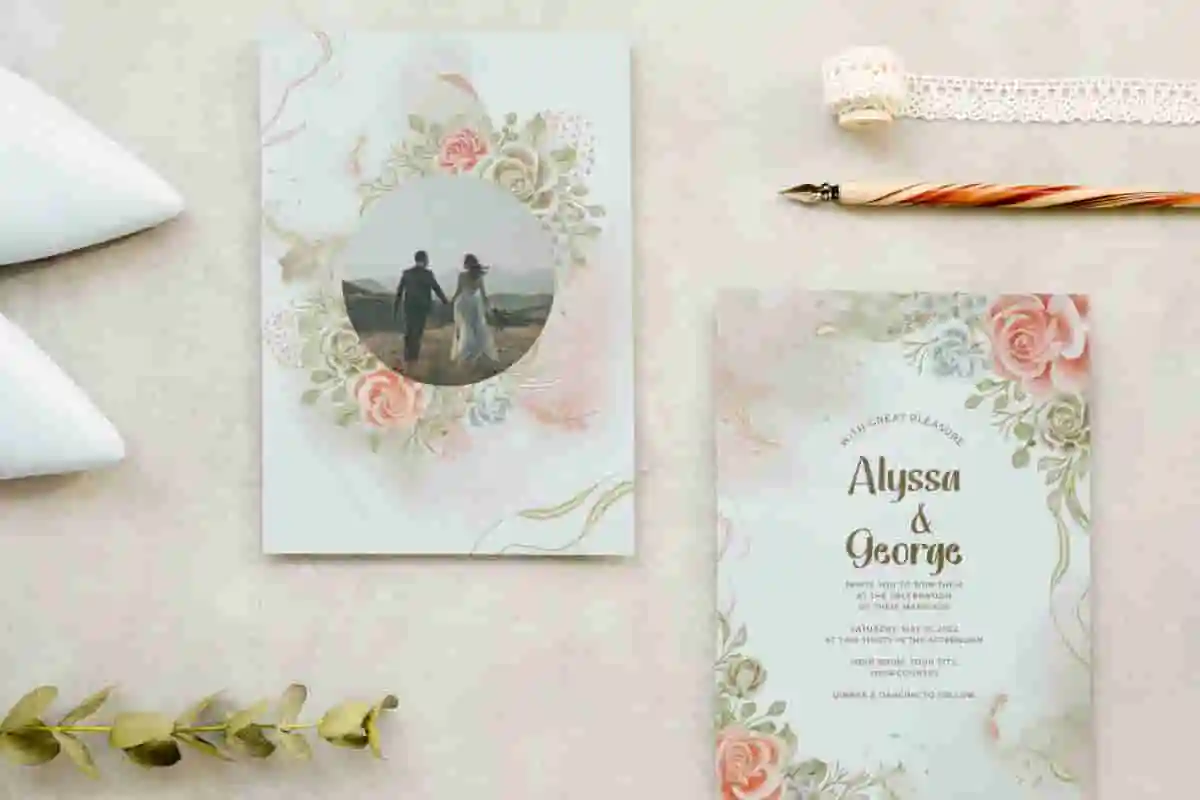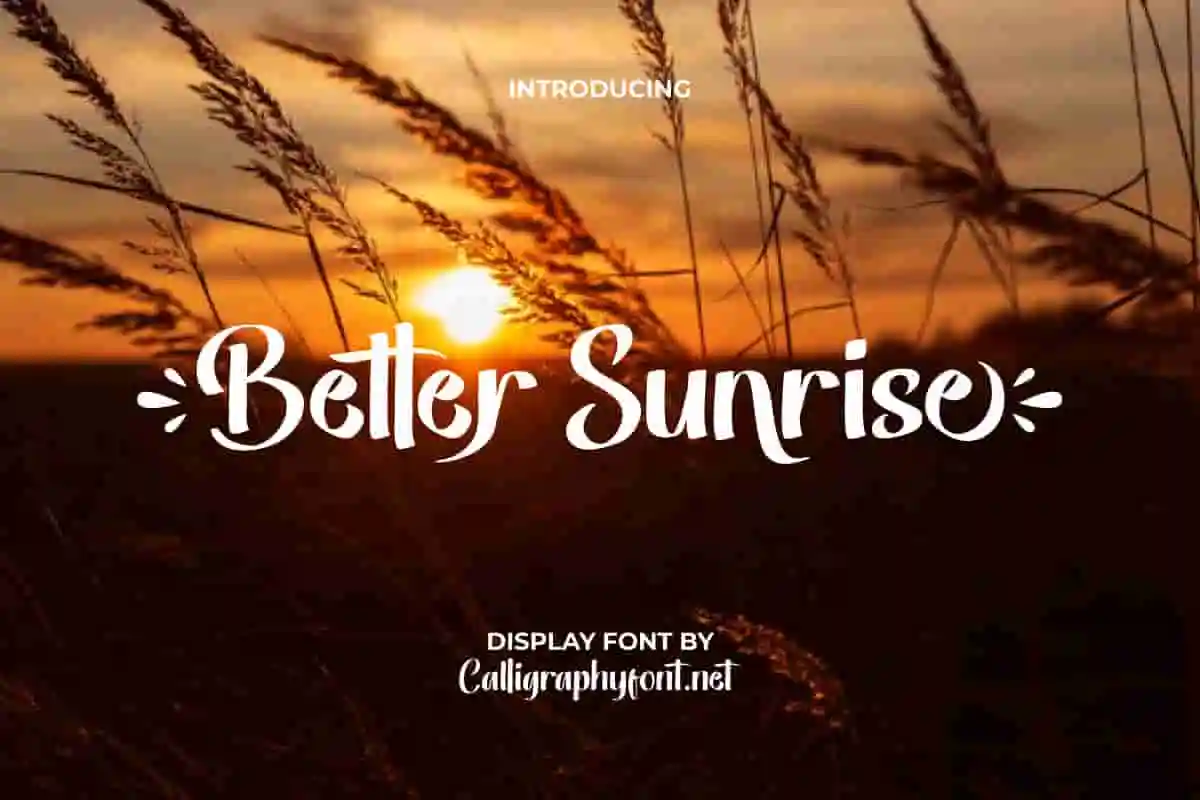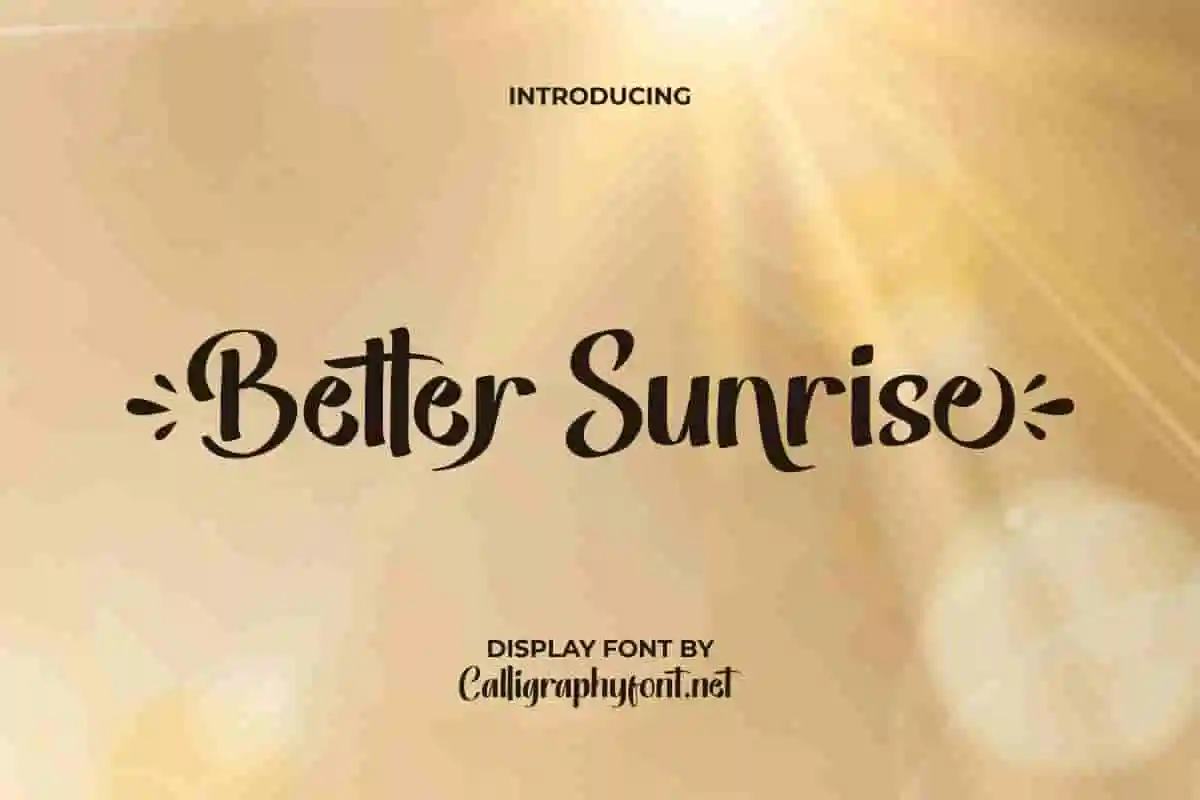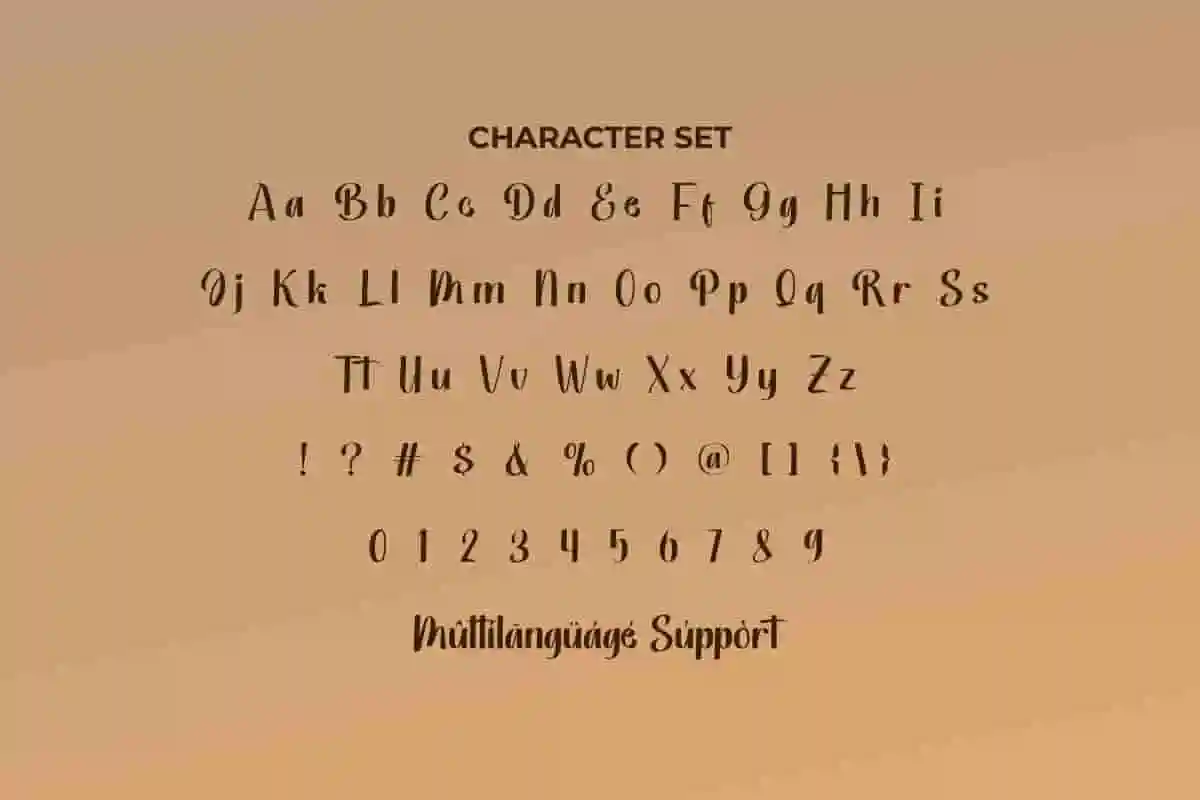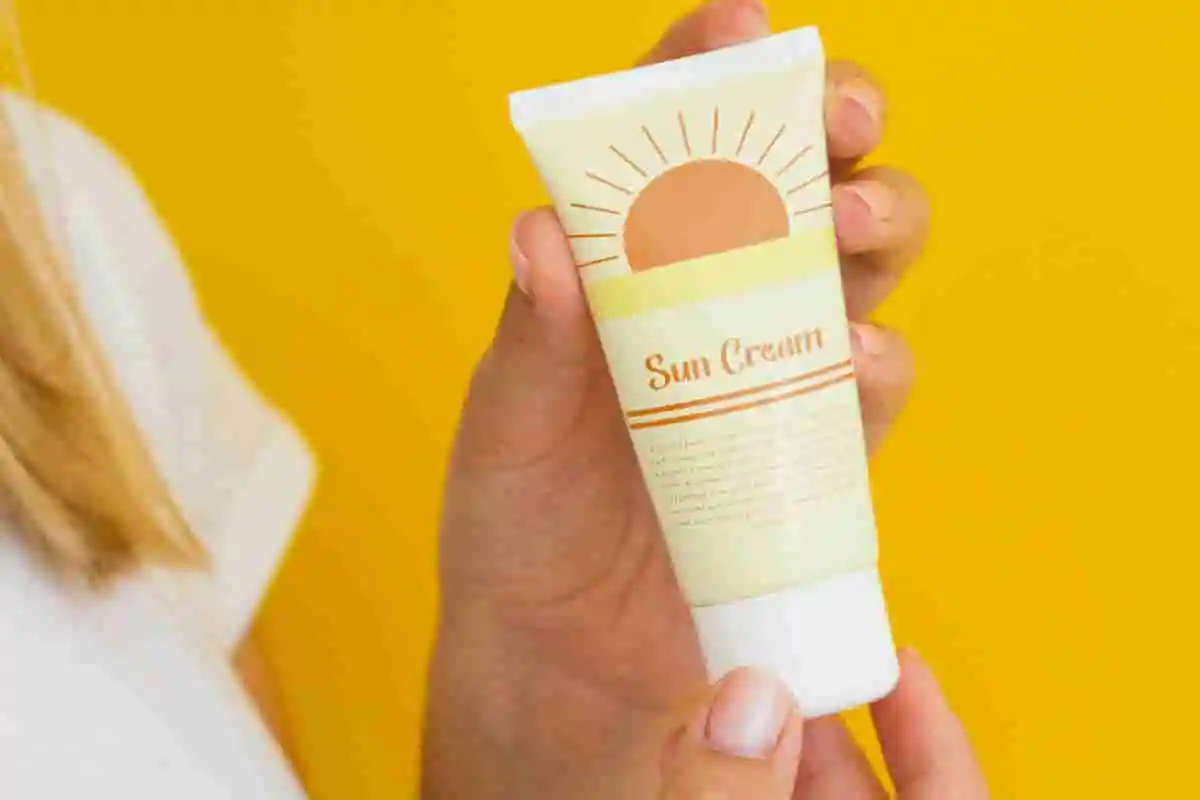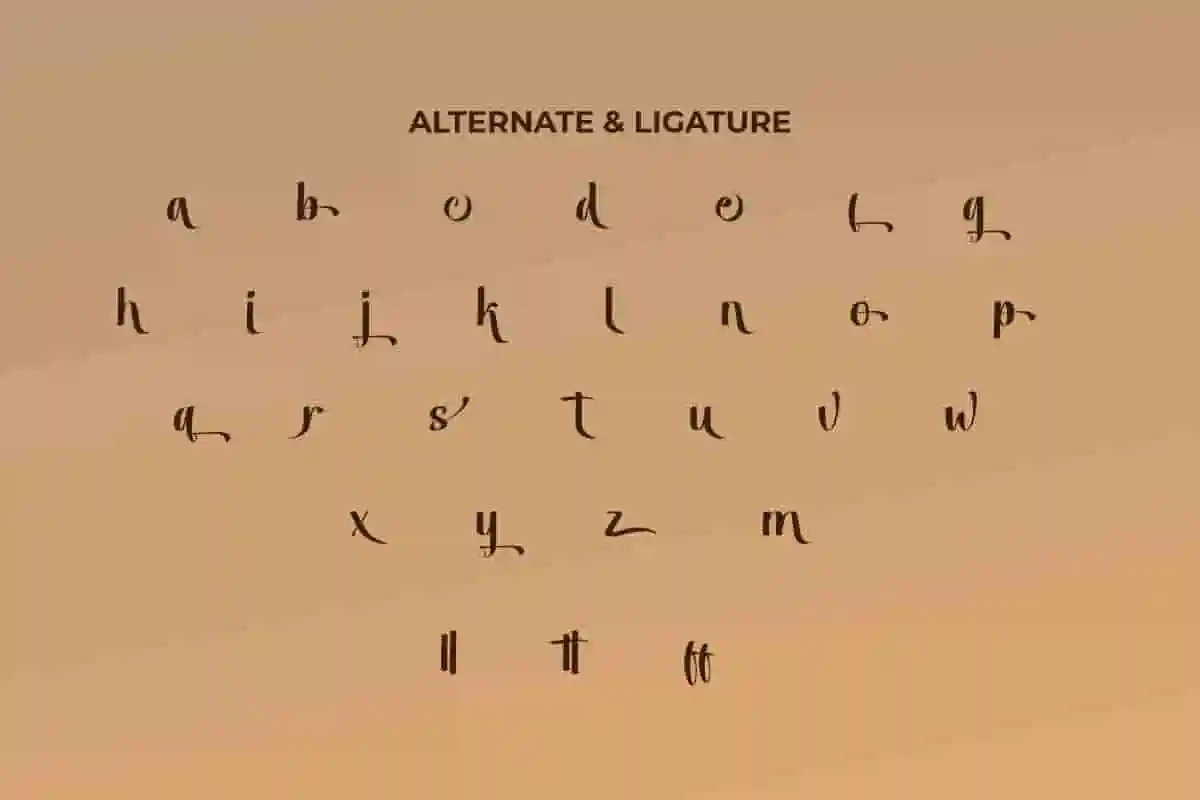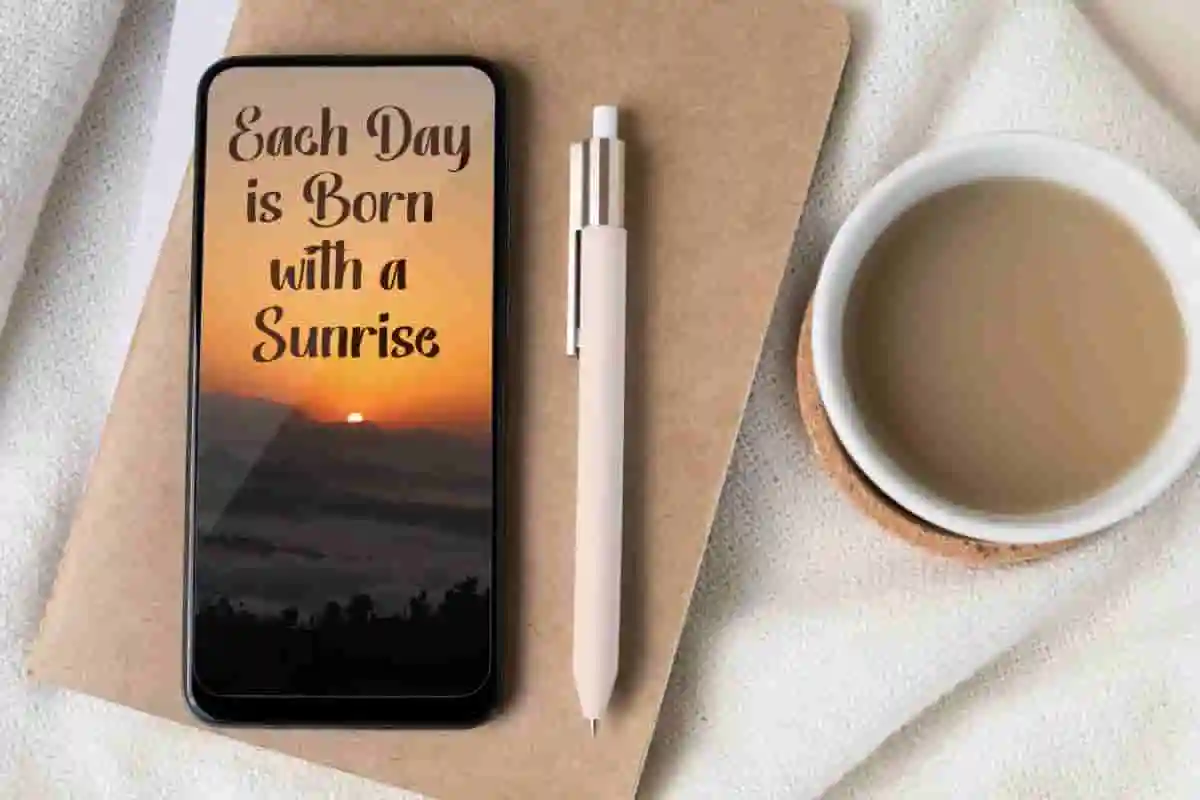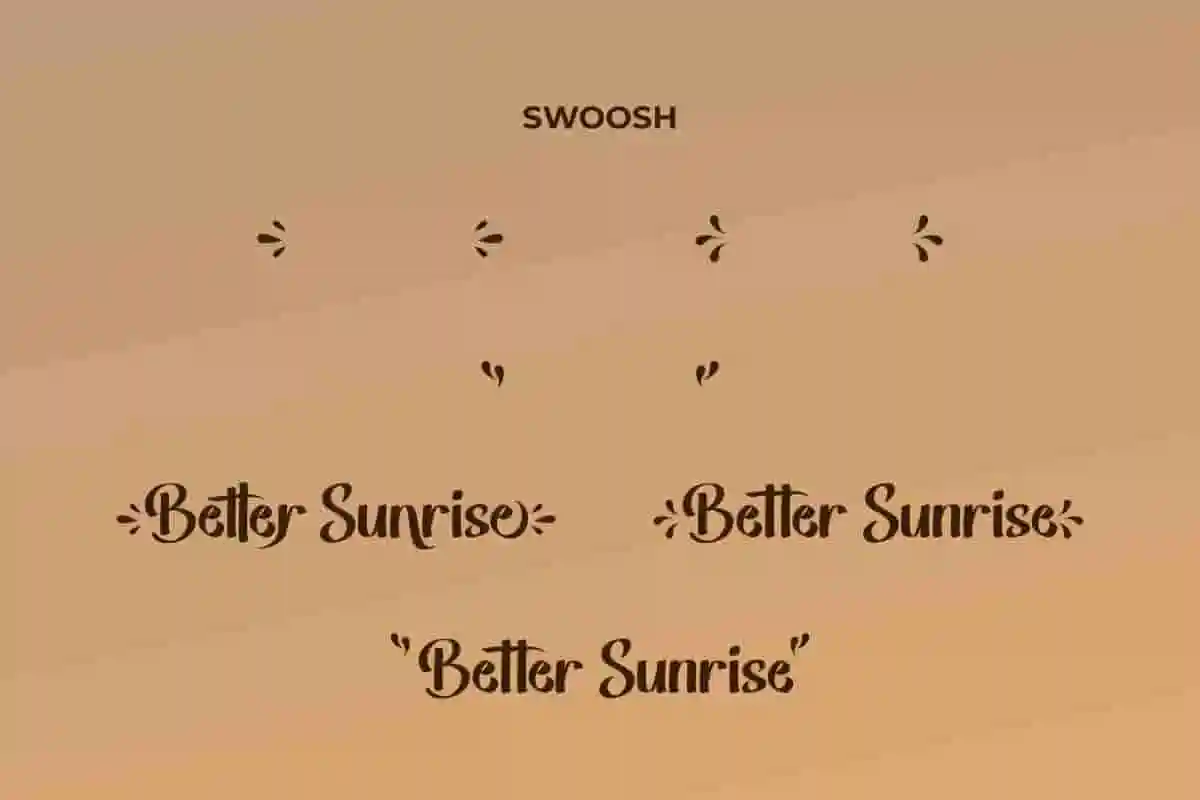
Better Sunrise Font
Better Sunrise Font is a beautiful neat display font with an aesthetic vibe that would be great for billboard, café, label, quote, skincare, sticker, wedding, writer, and anything else that requires a flawless look.
Better Sunrise Font is a modern display font with beautiful brush strokes around each character, created by CalligraphyFonts. Typography is one of the many types of lettering with an understated look that will be perfect for any creative project, such as apps, billboard, brand logo, brochure, business card, flyer, greeting card, header, invitation, label, product packaging, poster, price tag, quotes, screen print, stationery, title, website, and much more.
Better Sunrise Font is a classy font that is perfect both in single use and in combination with other types of font styles. It will be great for any industry, including : accessories, advertisement, author, beauty vlogger, café, content creator, cosmetic, event organizer, fashion brand, furniture, graphic design, handicraft, health fitness, interior design, photography, printing, publishing, restaurant, skincare, wedding, writer, etc.
Better Sunrise Font comes with a full set of Uppercase and Lowercase Basic Characters, Number, a large range of Punctuation and Symbol. Also equipped with Alternate, Ligature, and Swoosh characters that will decorate this font along with multilingual character support. Ready to use both on Windows machine or Mac with simple installations. It’s tested to work well in the Adobe Apps (Illustrator, Adobe InDesign, Adobe Photoshop) CorelDraw, and others. PUA Encode Characters means you can access all the characters easily – Fully accessible without additional design software.